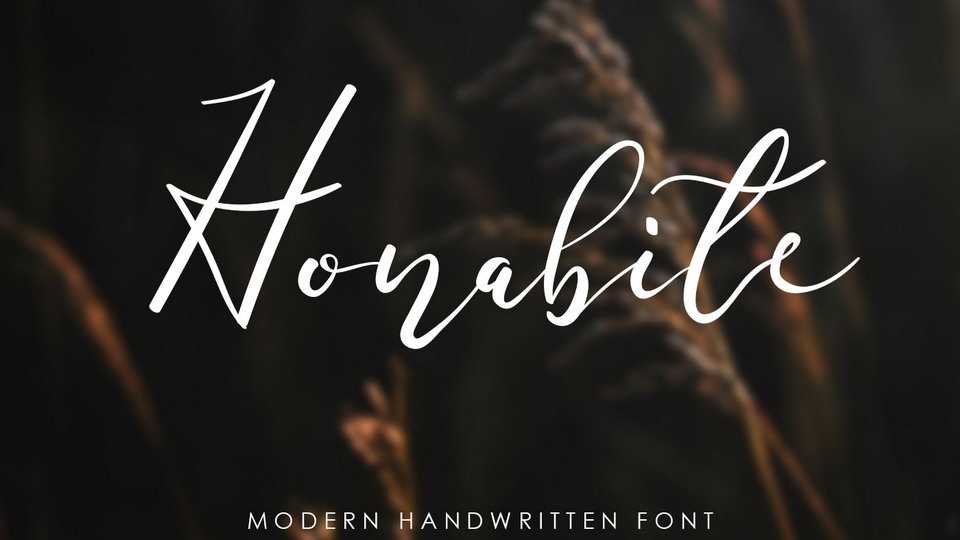
Download Honabite font, a beautiful handwritten script with an unique style with an elegant movements and is perfect for adding some grace to your designs and stylish touch.
Designer: lyanatha